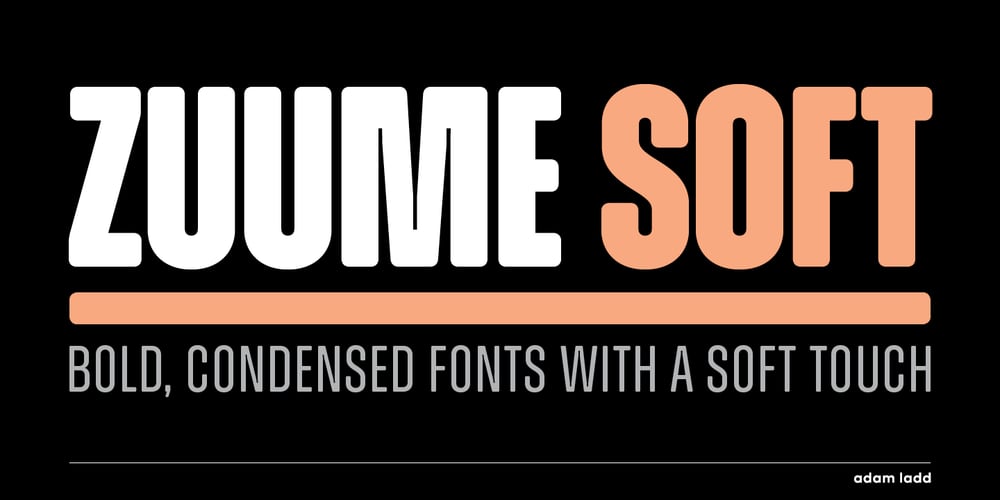
Zuume Soft Font Family was designed by Adam Ladd and published by Adam Ladd Design. Zuume Soft contains 1 styles and family package options. Zuume Soft is a high-impact, condensed sans serif family with a soft touch. A sister to Zuume, this version features round corners for a friendlier appearance. The lighter weights give a sharp, technical feel while the bold, blacker weights can be tightly spaced and stacked for a strong visual punch. The notched and extended ink traps add both function and aesthetic interest. The strong and sturdy design makes it ideal for eye-catching headlines, branding, packaging, sports, logos, and more.